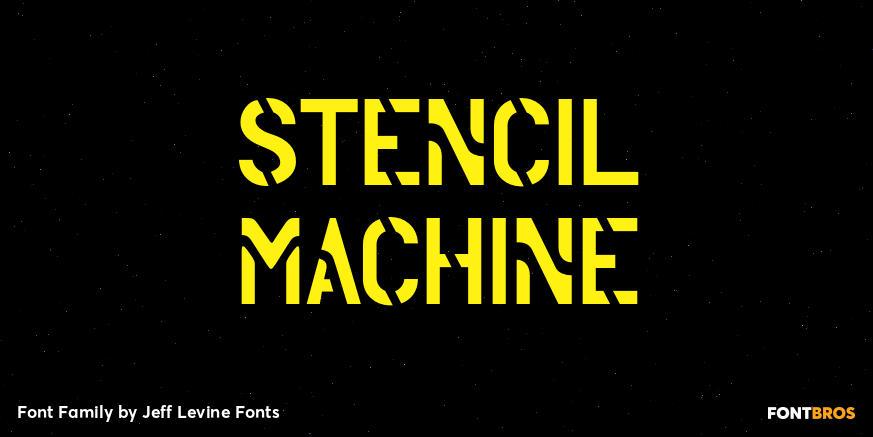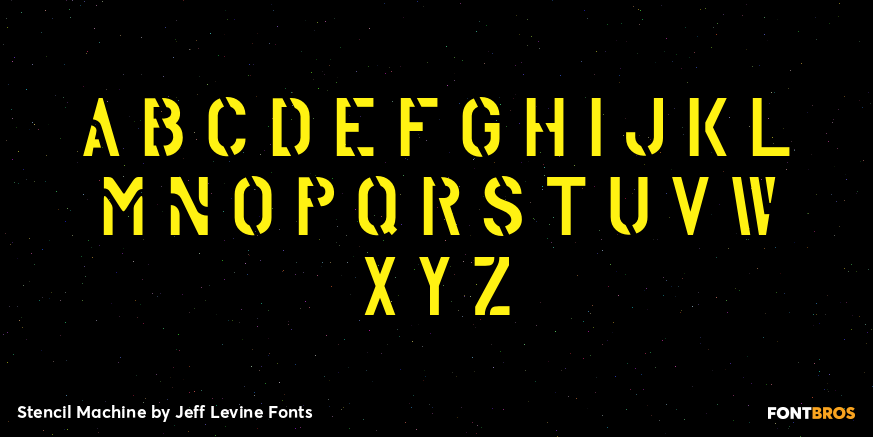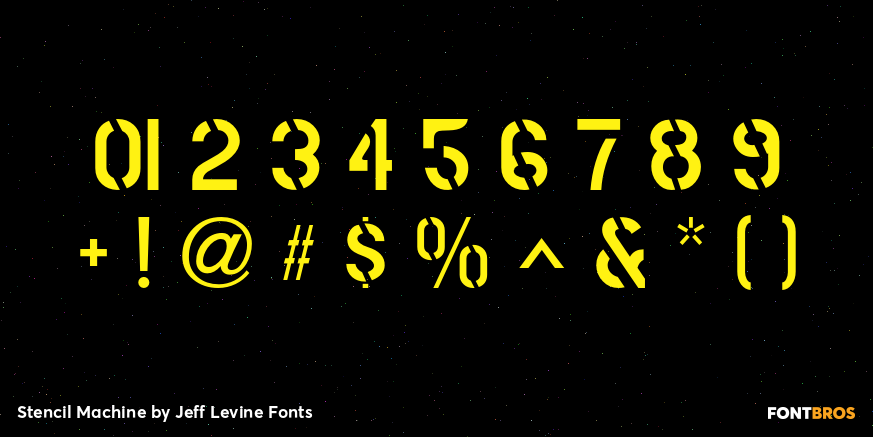
Stencil Machine
Stencil Machine JNL replicates the lettering of a stencil cutting machine. The stencils produced on such machines were primarily used for carton identification and shipping.